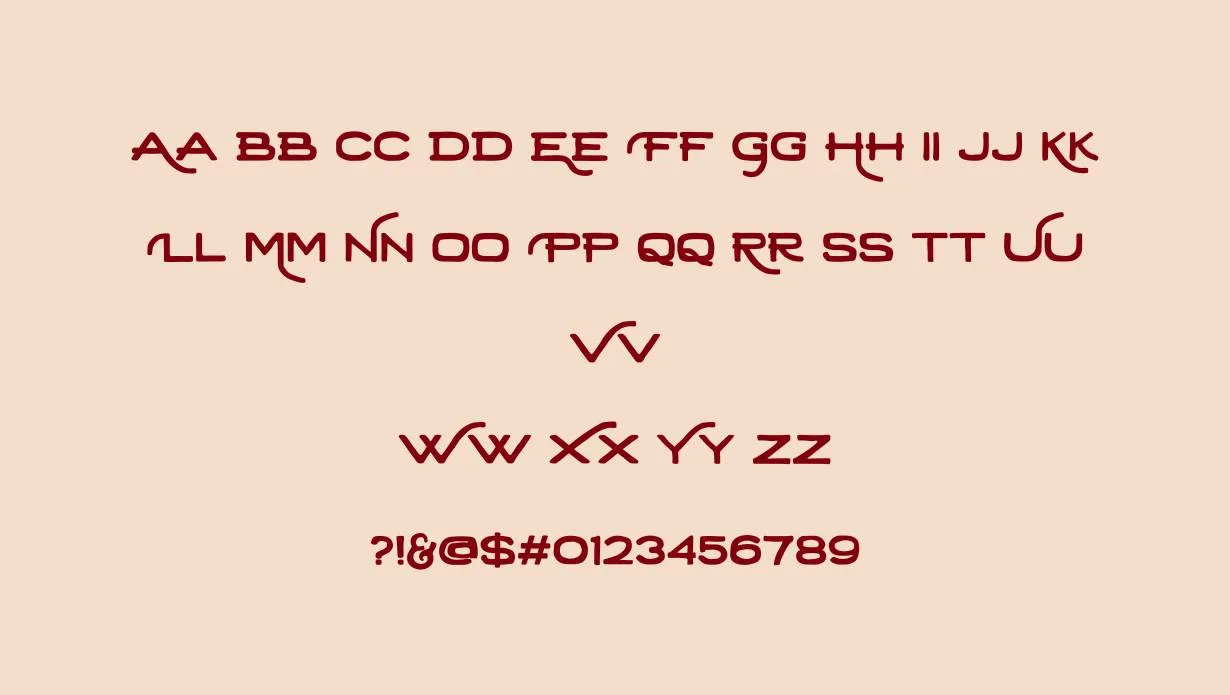
We are excited to introduce a trendy, ornamental, and classic font that will add a vintage and retro flair to any project, making it stand out and distinct. Retrica Font falls under the fancy font classification and was designed by Ryan Prasetya, available in both TTF and OTF formats.
It has an online generator tool, you can use it for free without downloading it onto your PC, just copy the text and paste it. This typeface also contains uppercase, lowercase, numbers, punctuations, symbols, alternate characters, special characters, and multilingual.
| Name | Retrica Font |
| Designer | Ryan Prasetya |